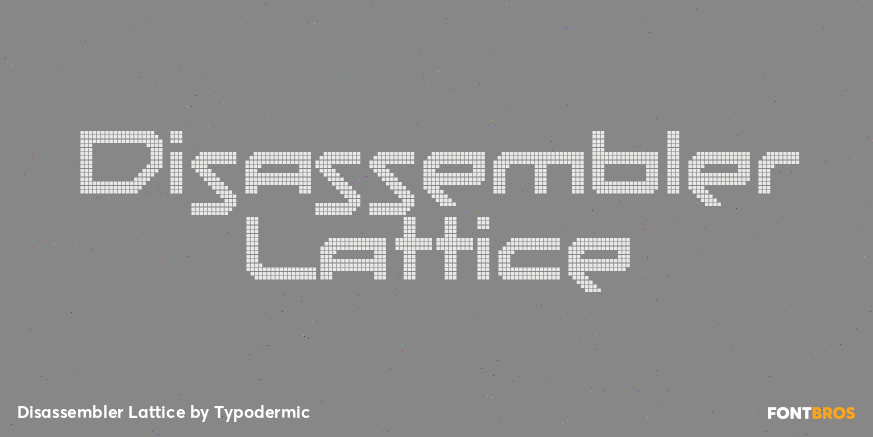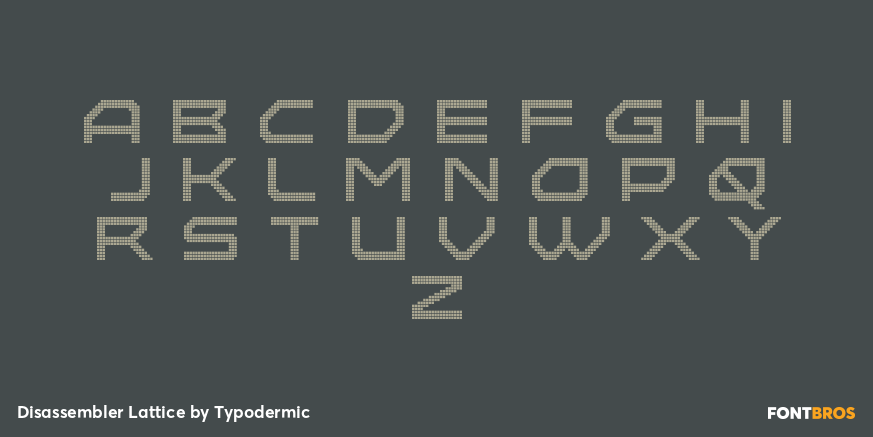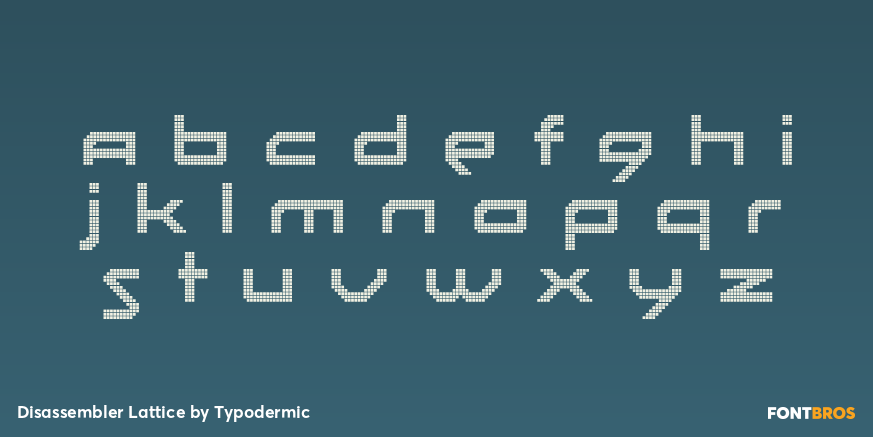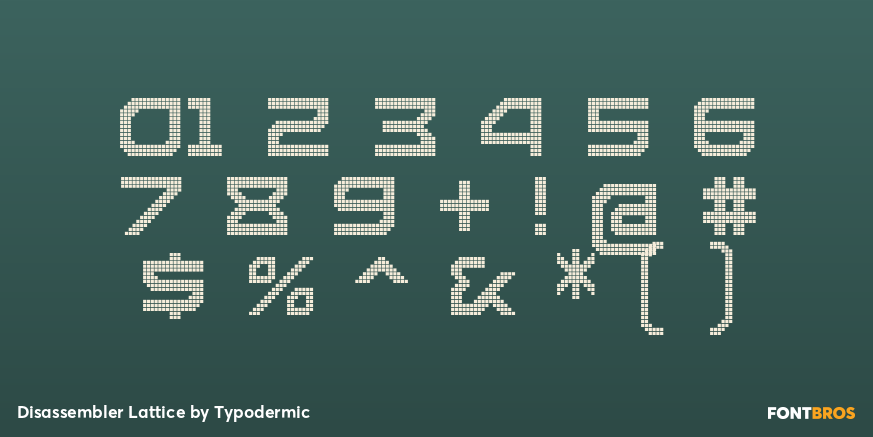
Disassembler Lattice
Buy NowDisassembler Lattice turns the pixel forms into an open framework of repeating intersections. The letters feel engineered from a structural array, making empty space and connection as important as the solid strokes of the original alphabet.
Use Lattice for aerospace systems, advanced materials, antenna and sensing technology, simulation graphics, defence exhibitions, and architectural-scale typography. At very large sizes it can behave like a technical pattern or framework; at headline scale it remains a clearly constructed member of the Disassembler family.